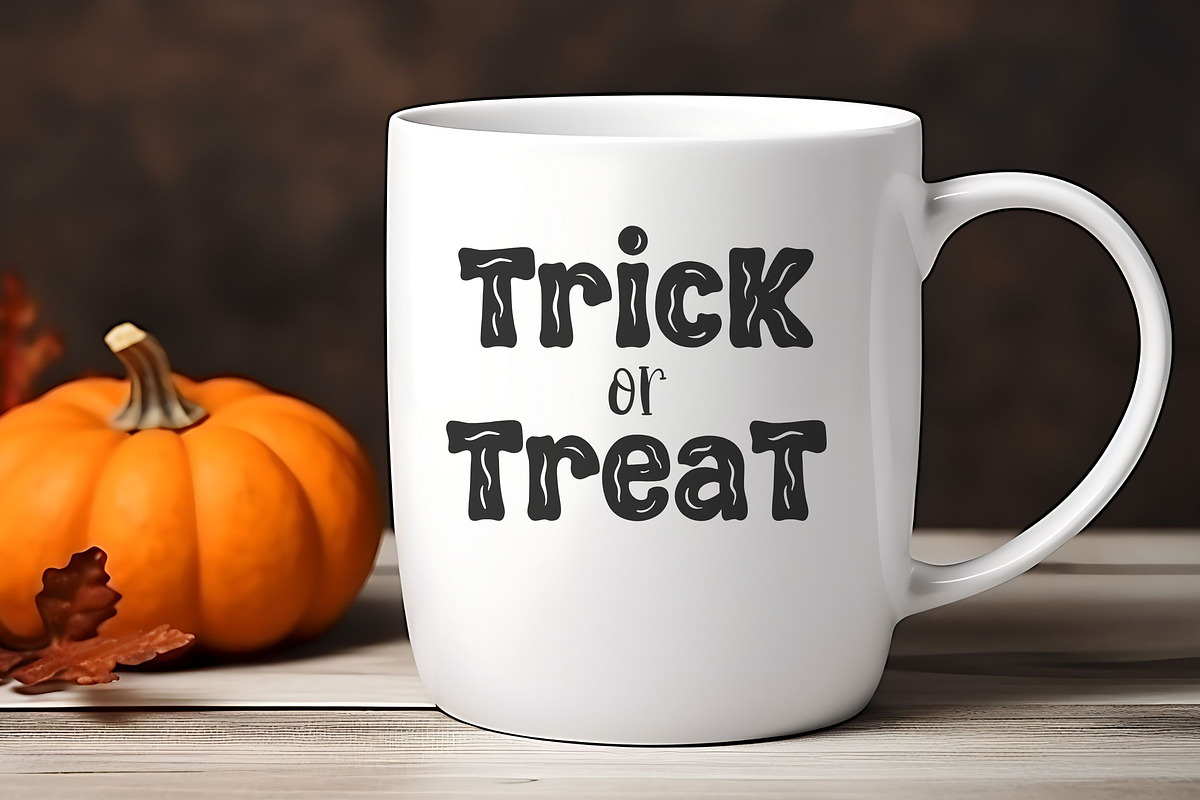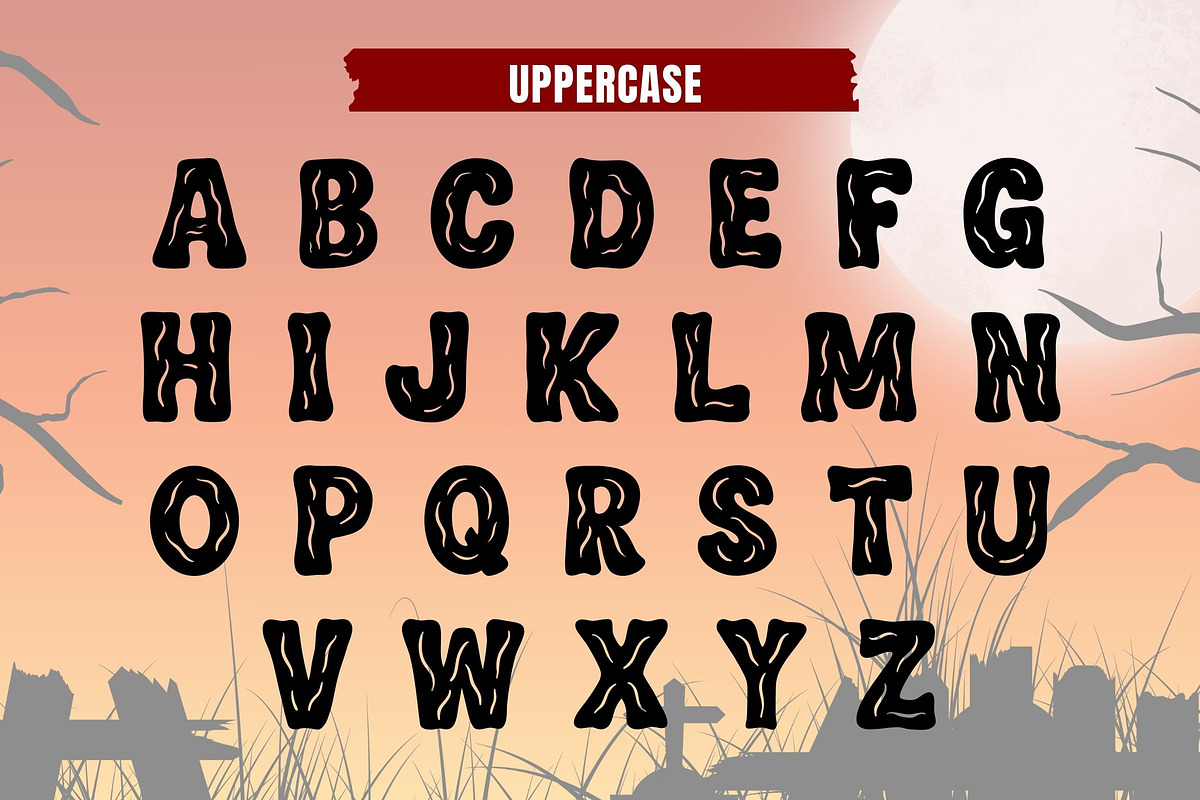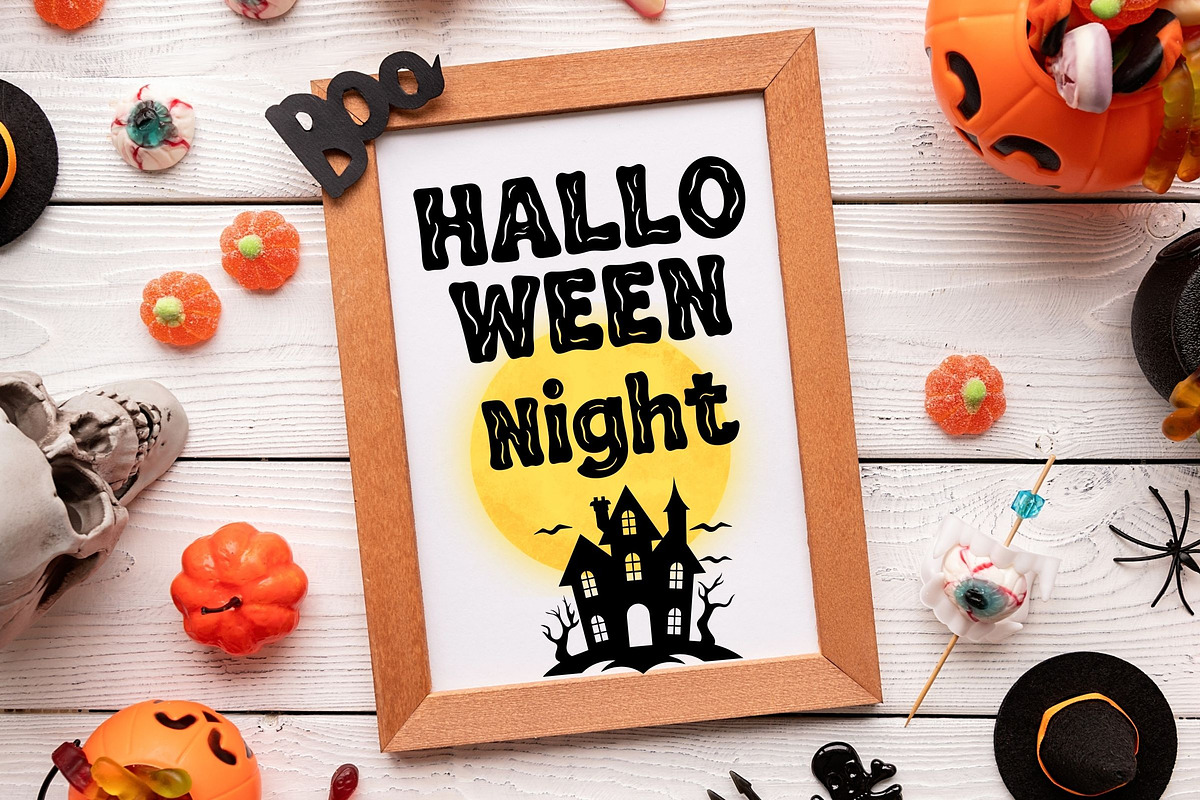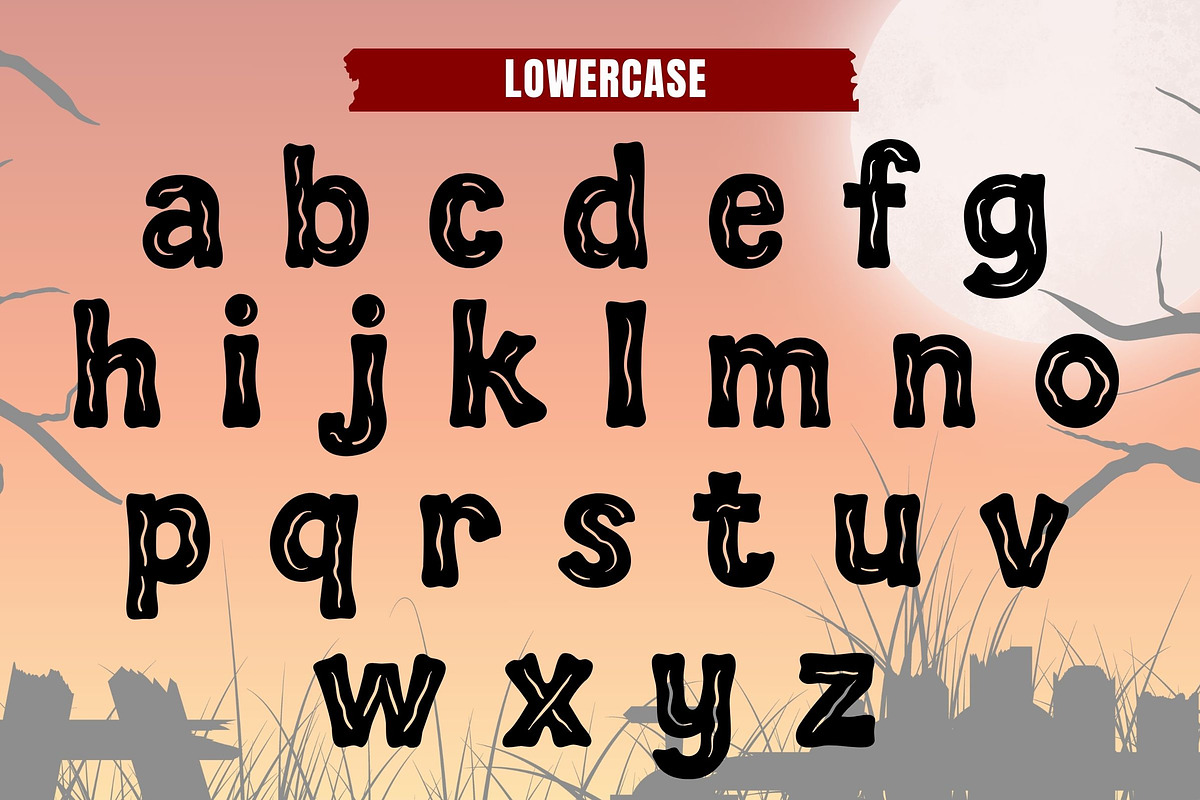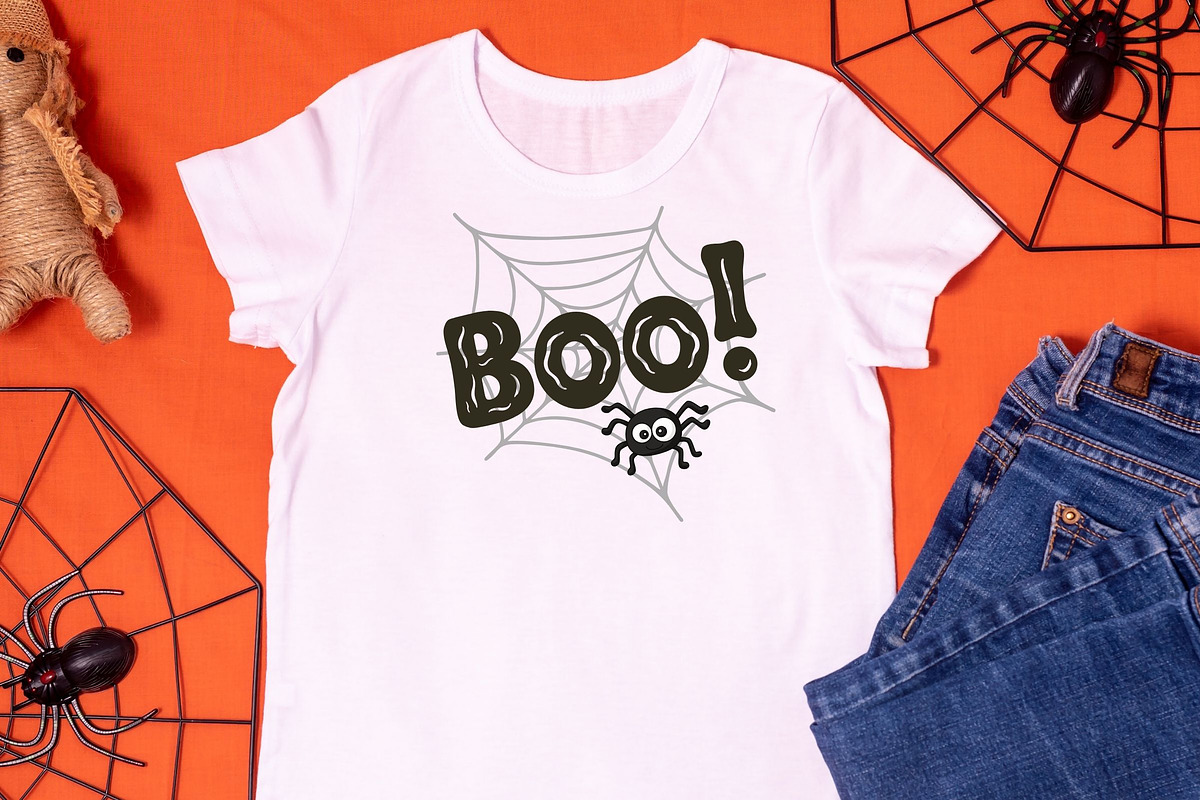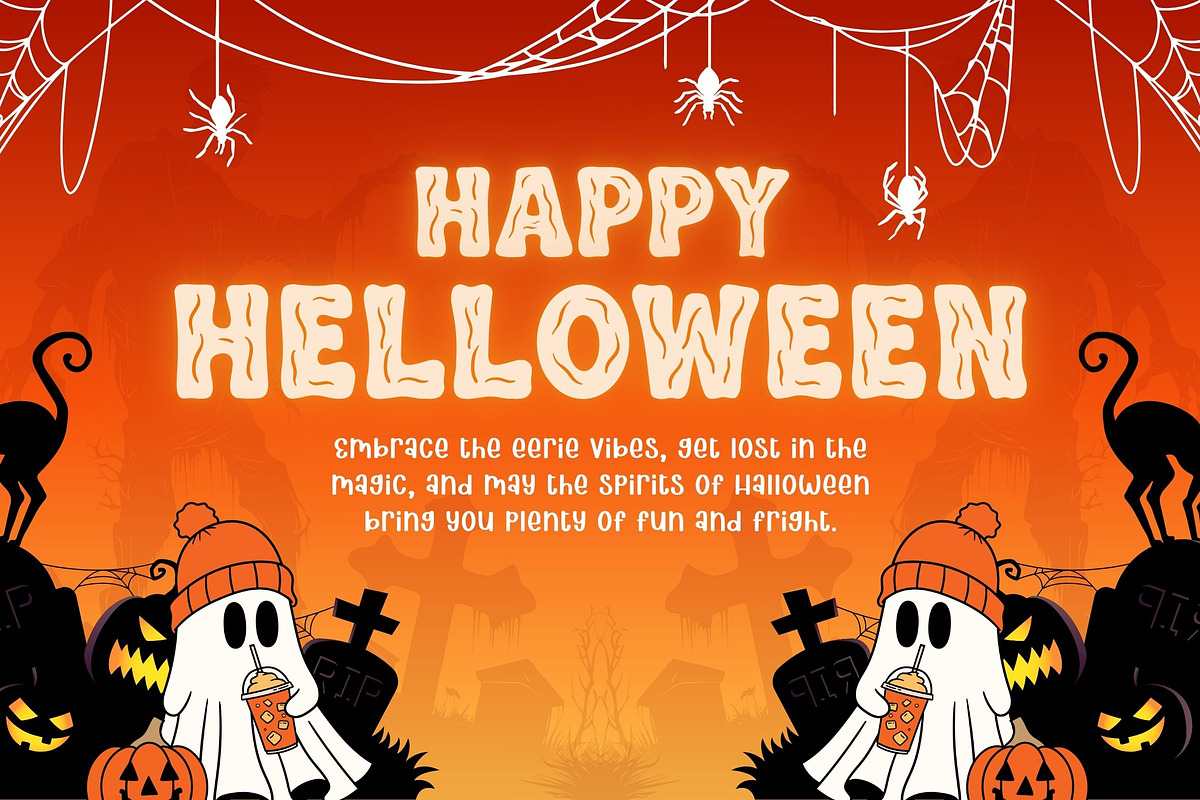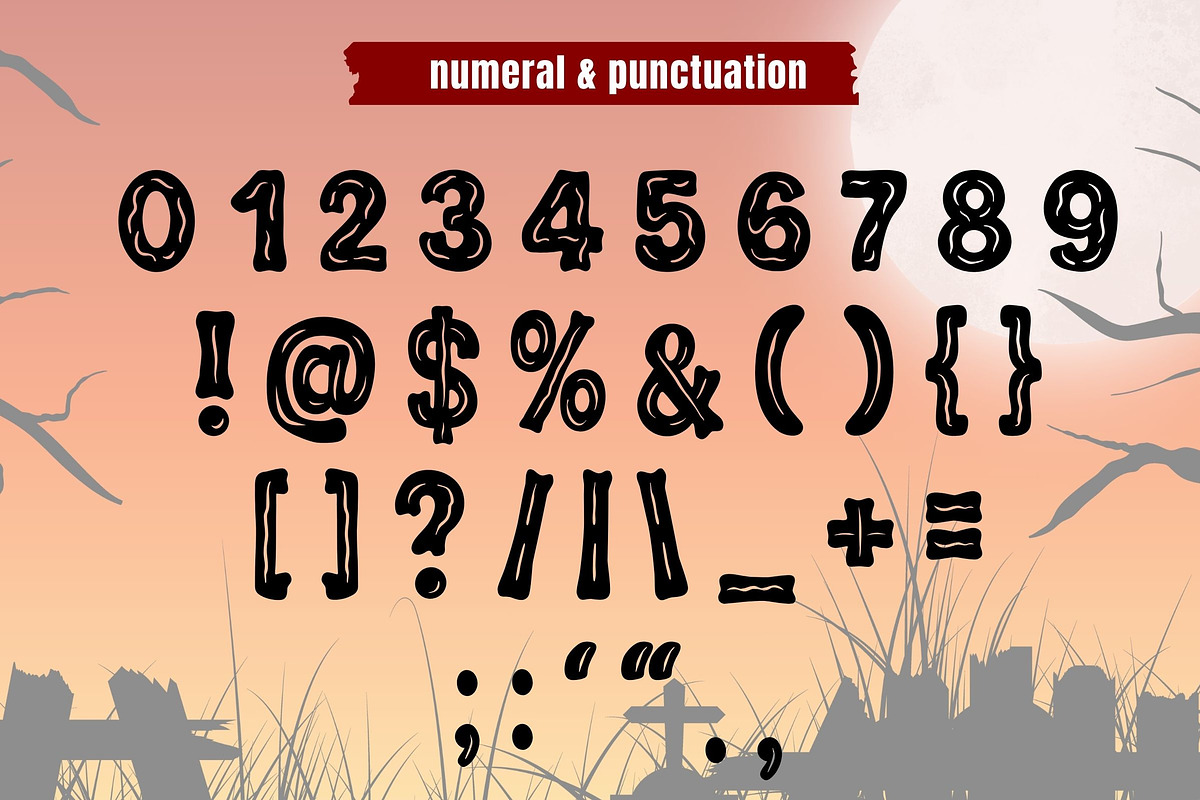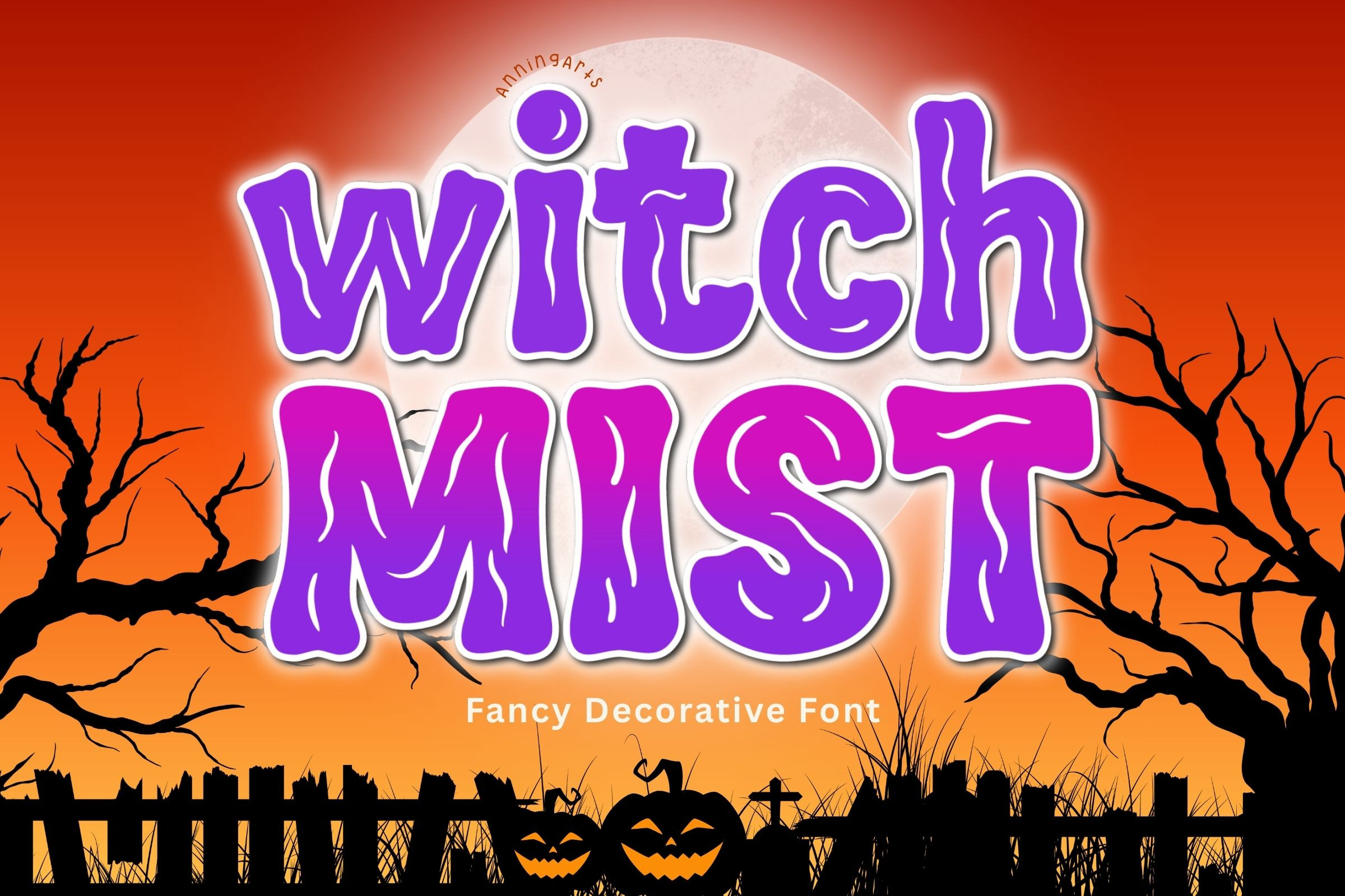
WitchMist – Spooky Halloween Font
WitchMist is a spooky-cute drippy display font inspired by fog, slime and Halloween night. Bold, rounded shapes with hand-drawn “mist” streaks make headlines pop while staying legible on small items.Perfect for: party invites, T-shirts, mugs, stickers, posters, treat bags, social posts, sublimation & crafts.